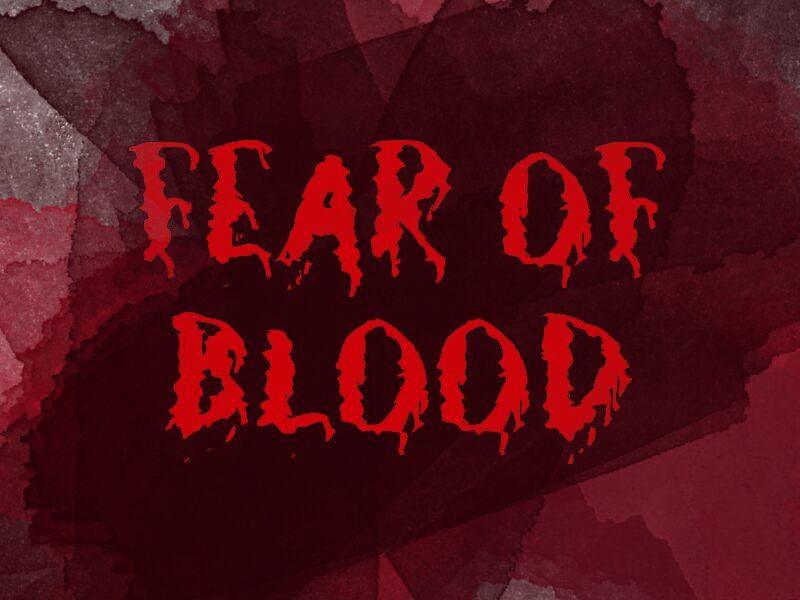
Fear of Blood font by wep is a horror-themed display font that is scary, bold, incredibly edgy and dramatic. It uses grunge to appear distressed over the character lines which affects the background as well. The thick appearance alongside hints of dark green and brown with black evokes fear in an instant.
As it one directly inspired by fear, this free display font is great for Halloween designs including flyer invites, posters and banners. As a potential material for commercial use, Fear of Blood works also on packaging projects like tags or labels added to scary costumes or accessories packaged for sale.